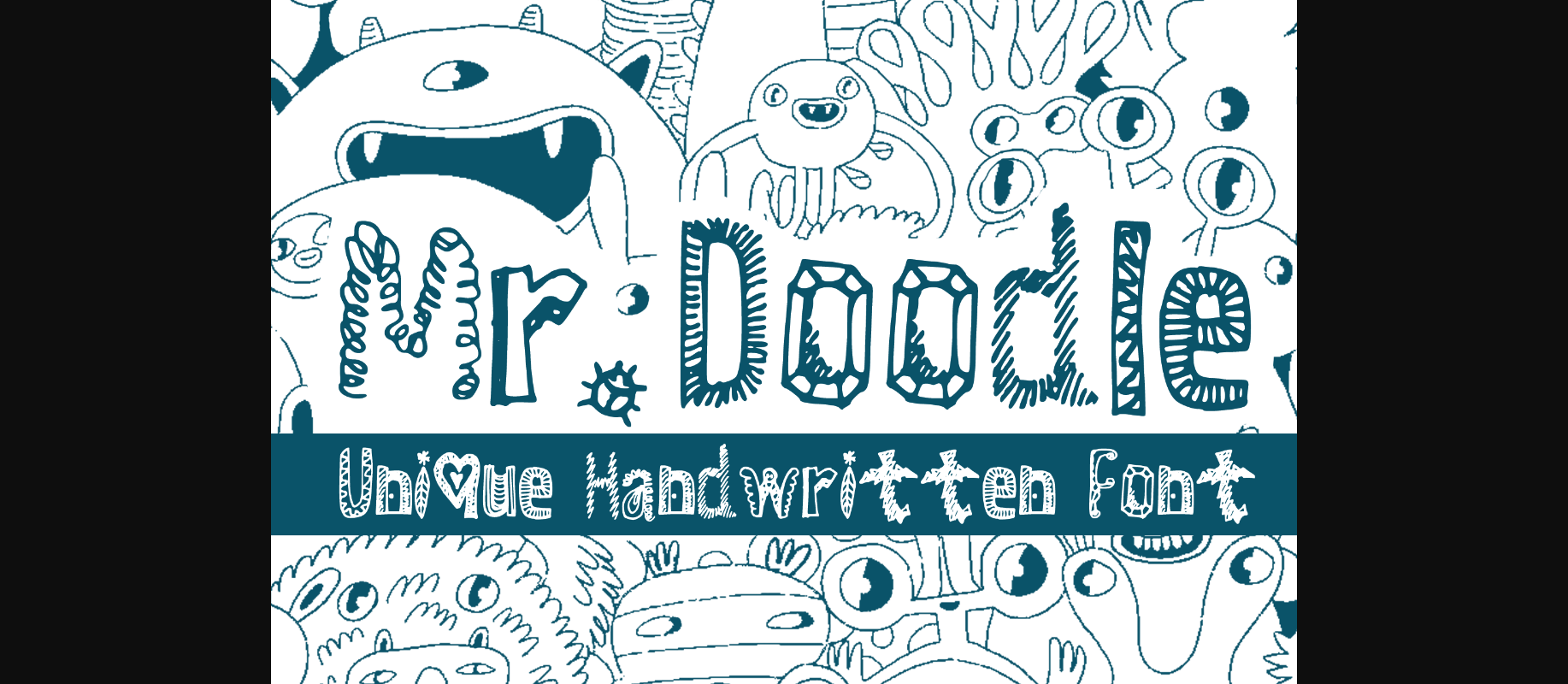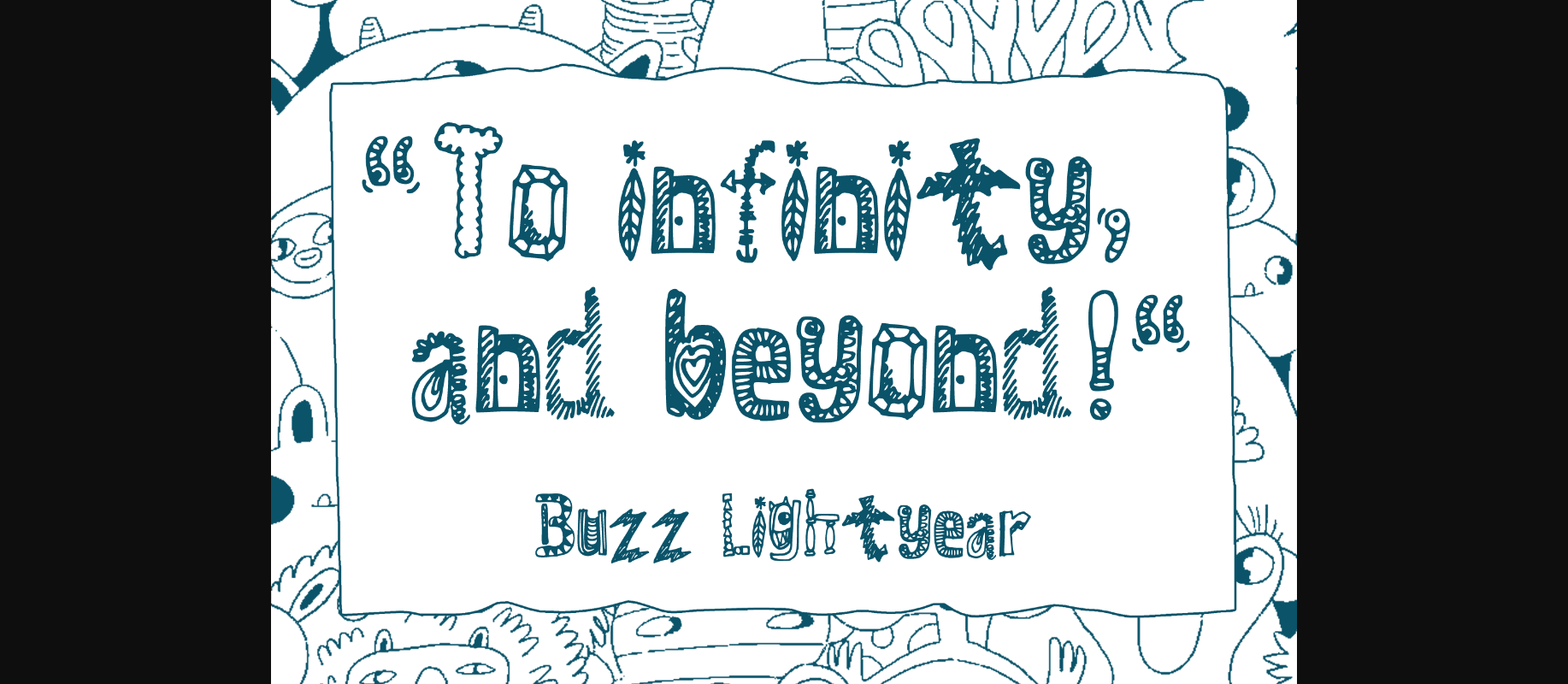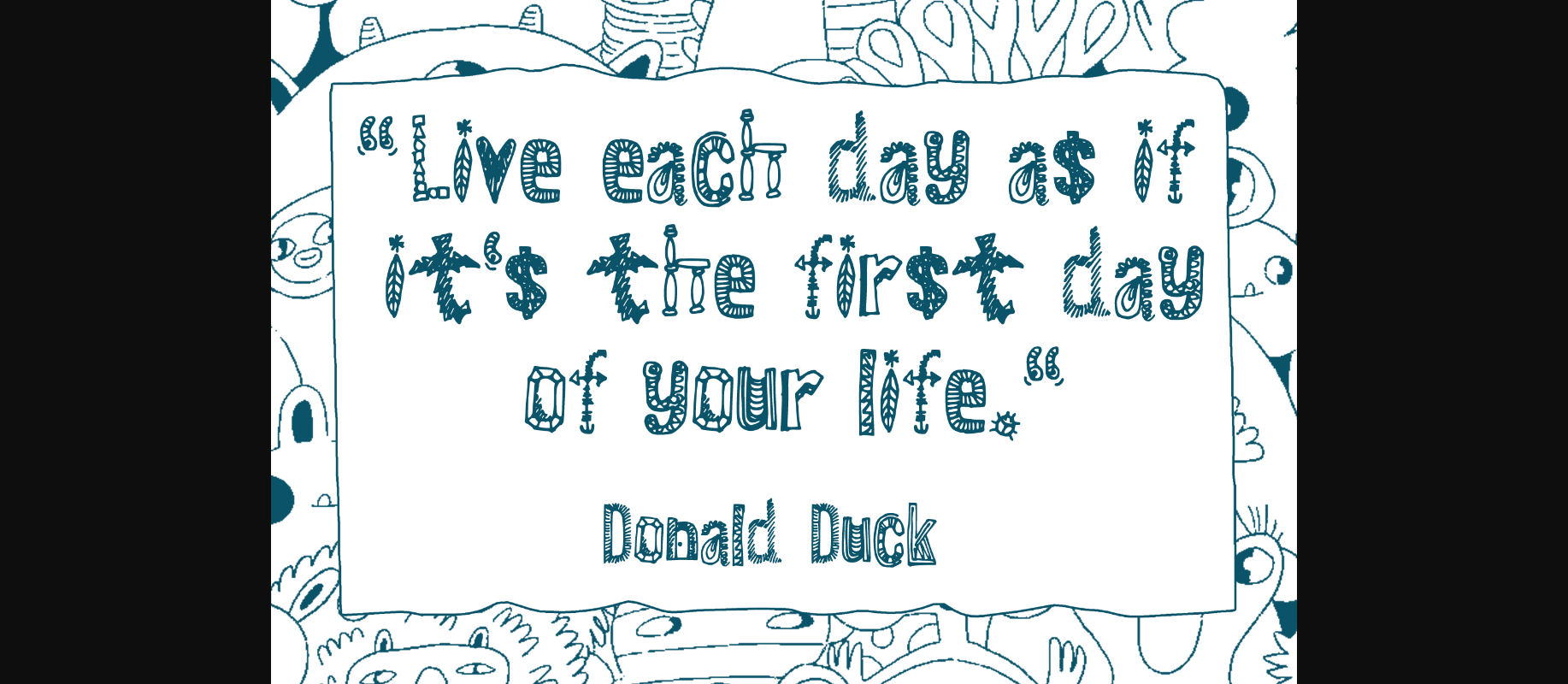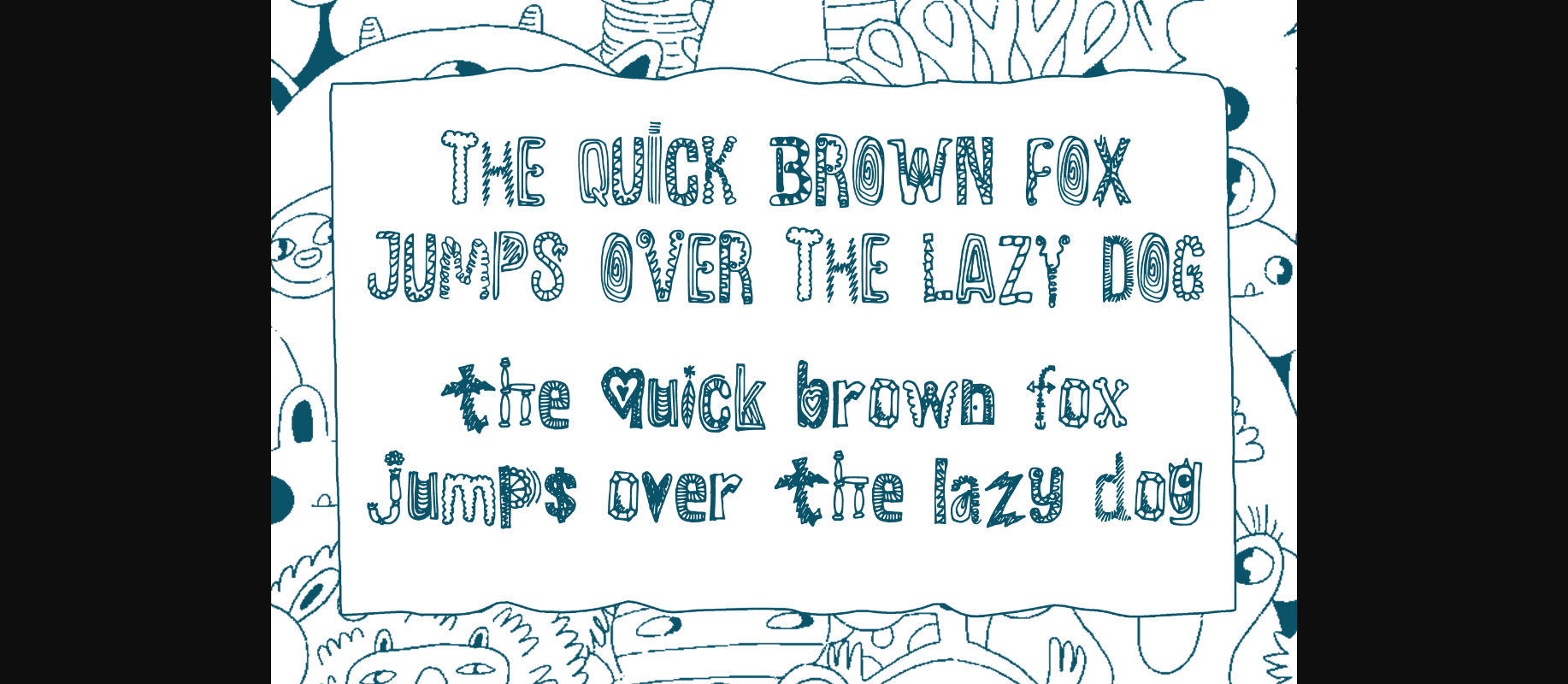
About Mr. Doodle Font
Mr. Doodle is a kid-friendly handwritten doodle font. You can use it for anything ranging from t-shirts, kids’ book designs, and greeting cards to stickers and posters, or anything that needs a casual touch. Fall in love with its incredibly versatile style and use it to create lovely designs!